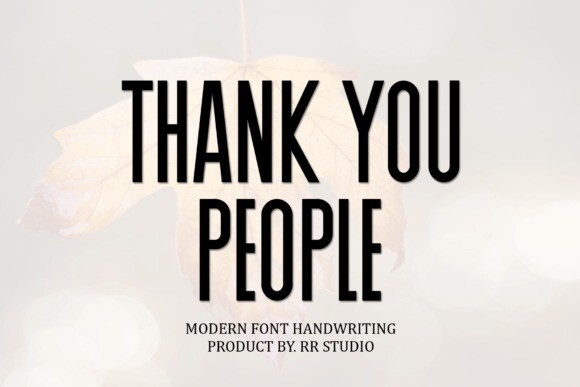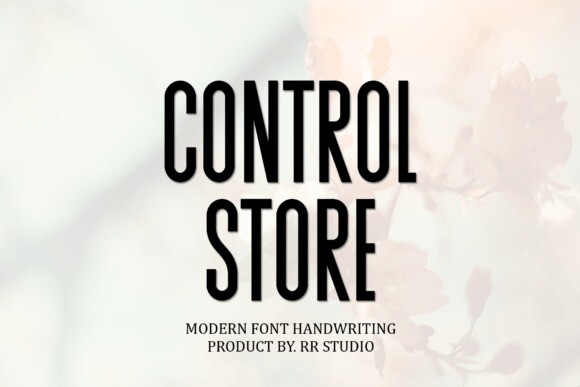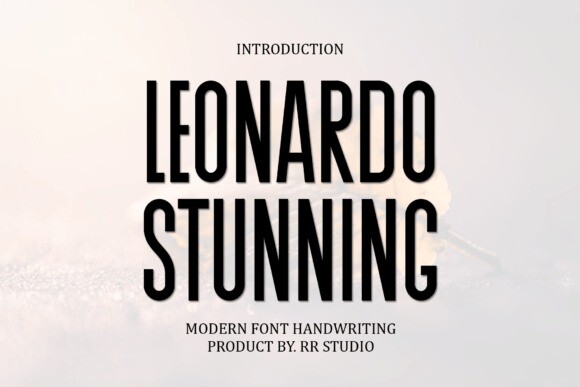
Leonardo Stunning Font
Designer: RR Studio
Leonardo Stunning Font is a fun and quirky display font. No matter the topic, this font will be an incredible asset to your fonts’ library, as it has the potential to elevate any creation.
Leonardo Stunning is a classic and simple handwritten script, created in a random and free style.
It is suitable for logotype, headline font, in corporate identity, brand identity, apparel industry, poster, music, movie, game, magazine, book, comic, cartoon, YouTube, Instagram, website, or any of your creative design projects